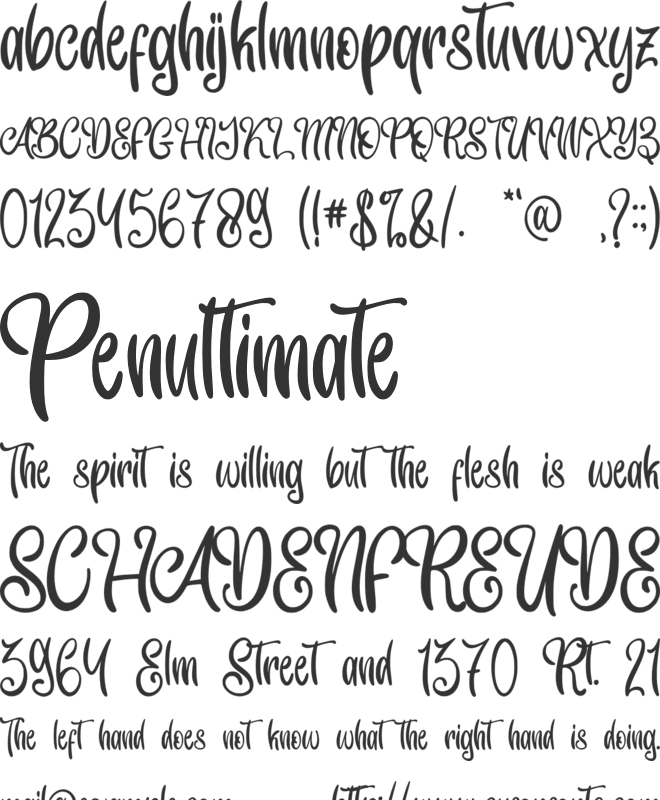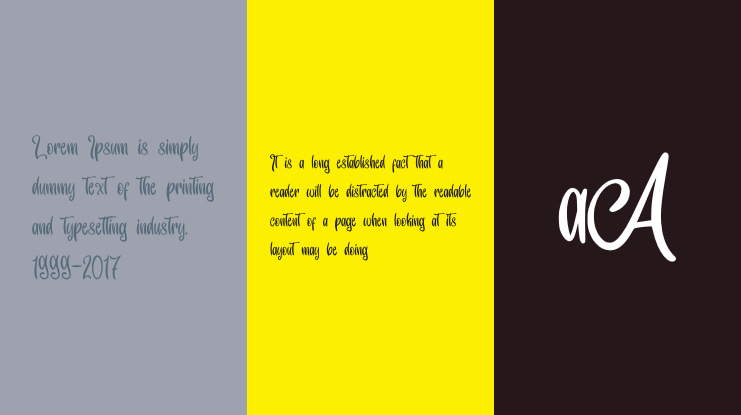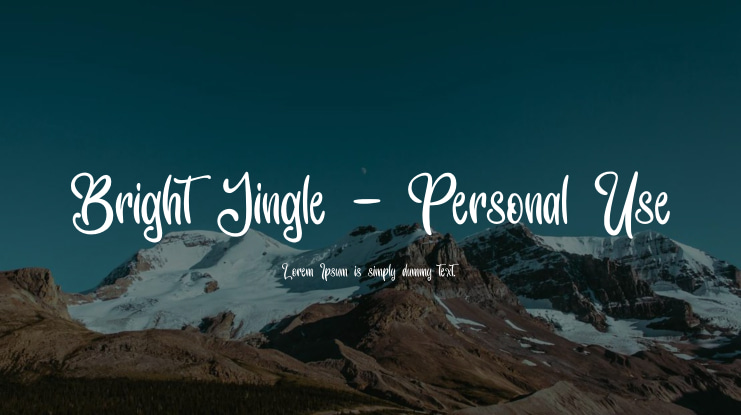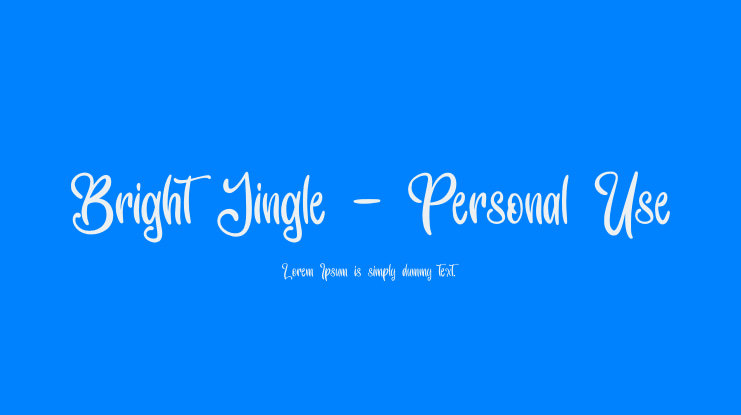
Bright Jingle - Personal Use Font
Bright Jingle is a festive display font featuring bold and cheerful characters. Ideal for holiday-themed designs, posters, and packaging, its playful style and vibrant energy add a joyful and lively touch to seasonal projects.